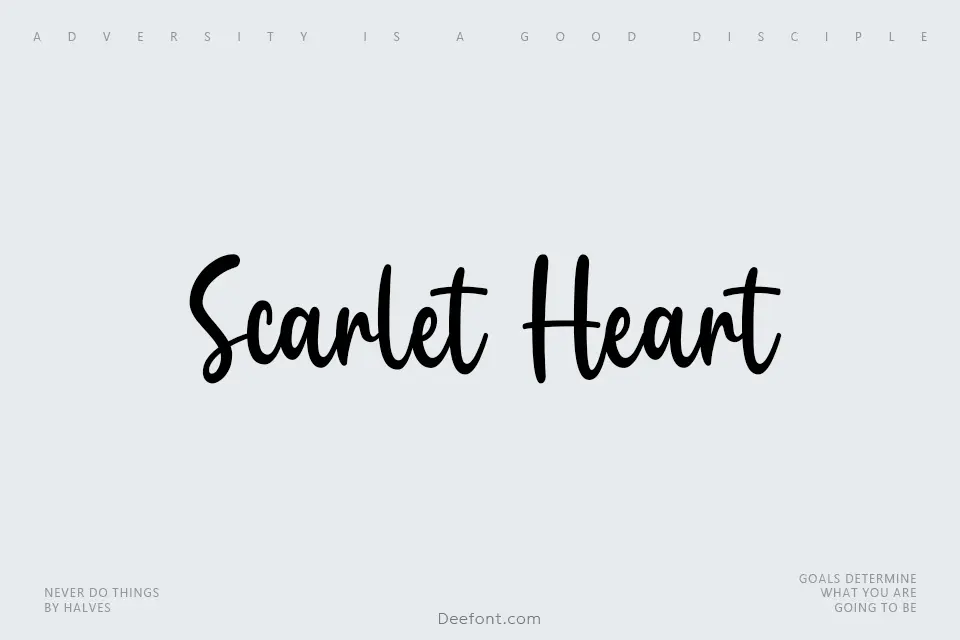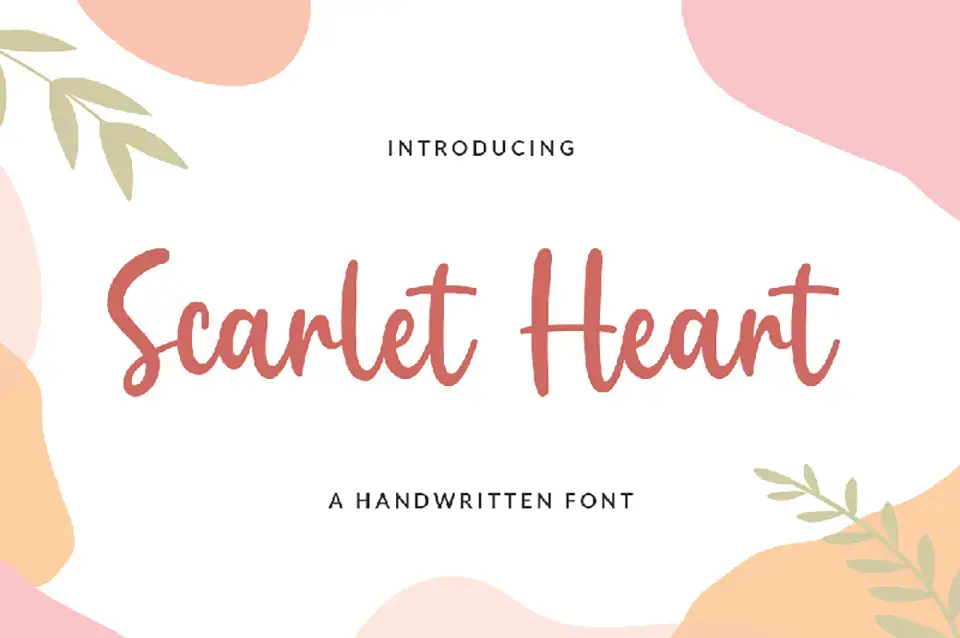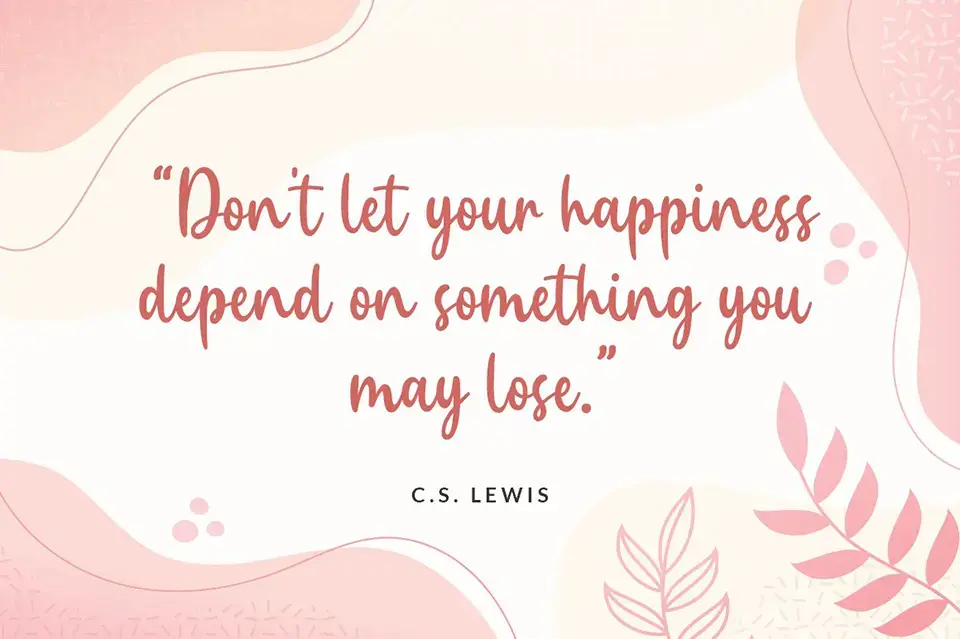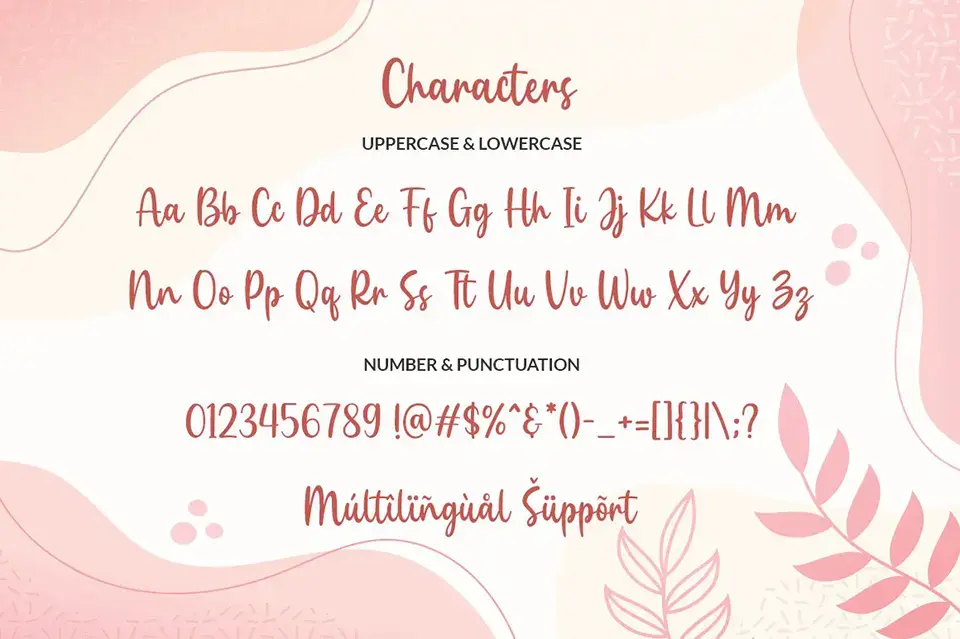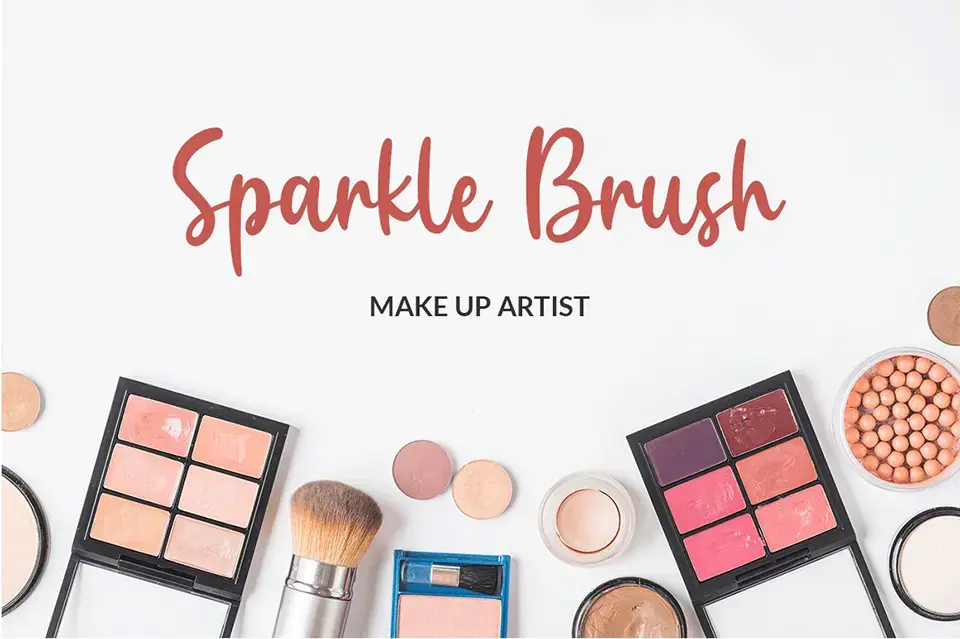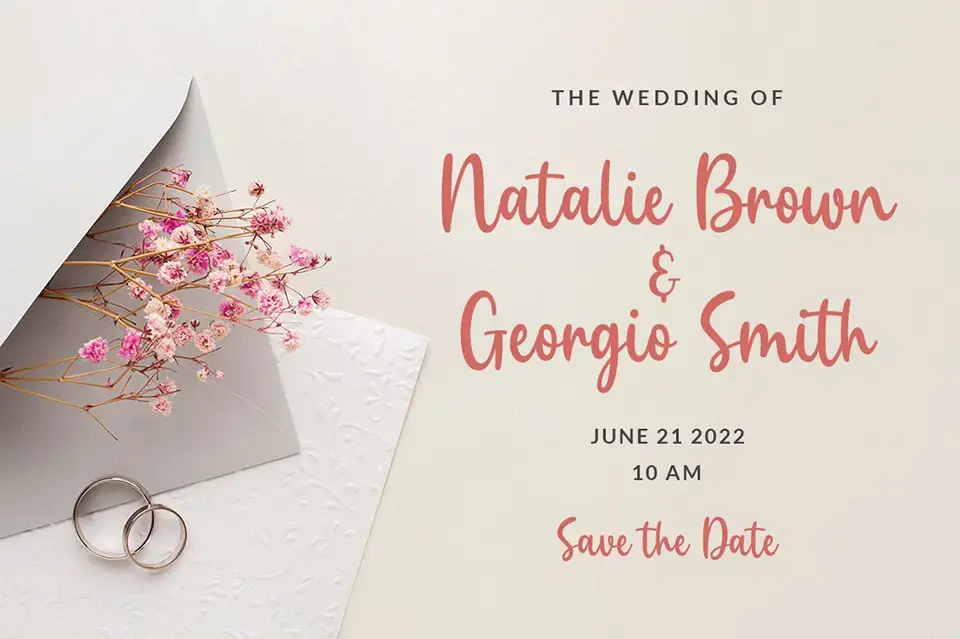
Scarlet Heart Font
Scarlet Heart is a stunning handwritten script font that exudes elegance and sophistication with flowing curves and gentle strokes. This charming typeface creates a captivating, feminine aesthetic ideal for logo design, wedding invitations, greeting cards, branding, and social media graphics. The semi-bold option adds emphasis to headlines and titles, while the regular weight suits body text and invitation designs, making it perfect for any project seeking refined, graceful typography.